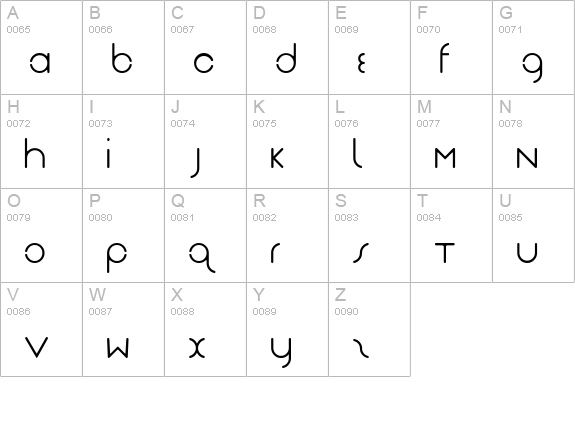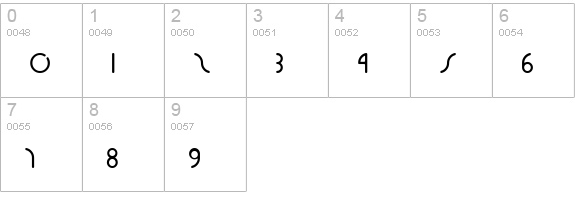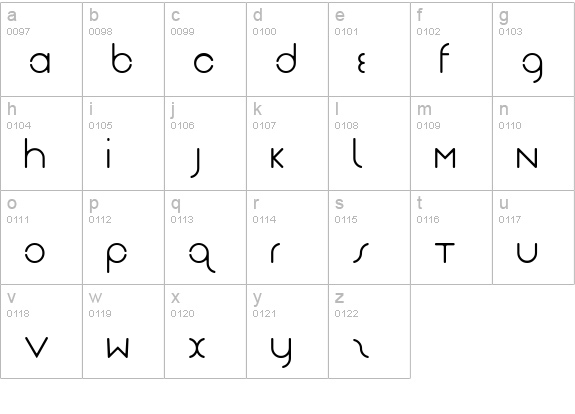
Das Reicht Gut Regular is the standard, neutral variant in the Das typeface family \xE2\x80\x94 well suited to general body text, paragraphs, and standard typographic work.
Das Reicht Gut Regular is a versatile and modern font that exudes sophistication and elegance. With its clean lines and balanced proportions, this font is ideal for a wide range of design projects, from branding to editorial design. The sleek and contemporary look of Das Reicht Gut Regular makes it perfect for creating eye-catching headlines, logos, and more. What sets Das Reicht Gut Regular apart is that it is not only stylish and functional but also free for anyone to download. Yes, you read that right – this stunning font is freely available for download at FontsMarket.com. So whether you're a seasoned designer looking to add a new font to your collection or a budding creative on a budget, Das Reicht Gut Regular is the perfect choice for your next project. Download it today and elevate your designs with this beautiful and versatile typeface.